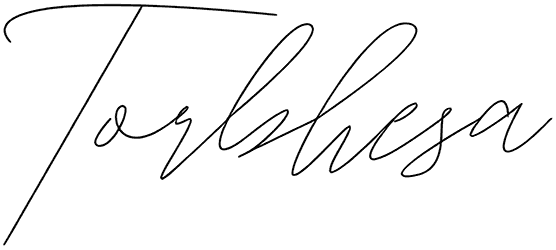
Torbhesa Font
Designed byJadatype
The more you’re into handwritten fonts, the more you’ll be using Torbhesa in your different projects. Even though the lines are pretty thin and light in color, Torbhesa still makes its mark on your lettering, and in fact, it seems closer to actual handwriting this way.
You get to keep things real with this cursive font, even if it’s not exactly easy to read. So make sure to choose the right size before adding it to your postcards, books, etc.